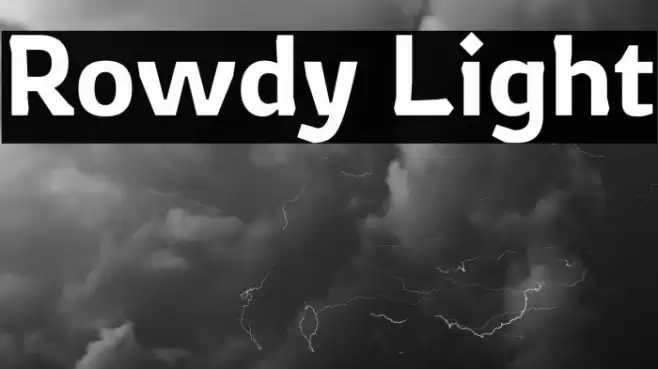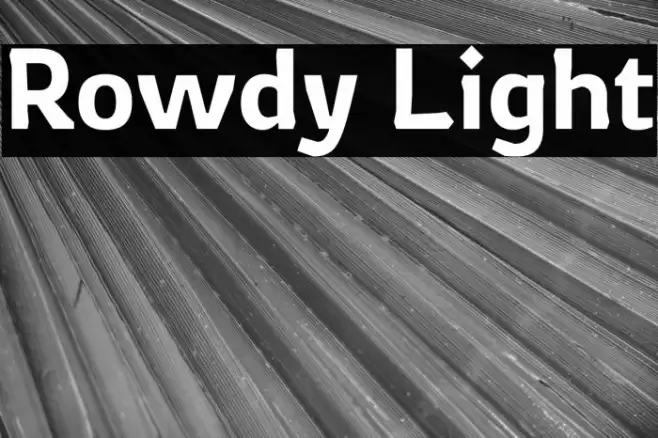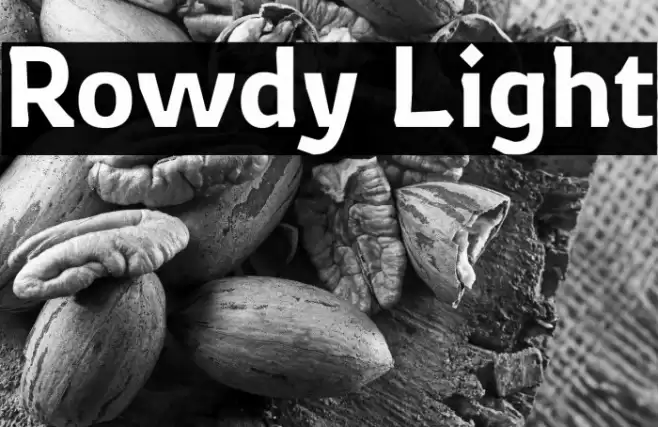
Rowdy Light Font
Rowdy Light Description
This font features a bold and robust design with clean, straight lines and a modern aesthetic. The uppercase letters are uniform in height, providing a strong and consistent appearance. The lowercase letters maintain a similar width, offering a balanced look. Numbers are clear and easily distinguishable, making them suitable for various applications. Special characters are well-defined, ensuring readability and versatility. The overall style is contemporary, making it ideal for projects that require a strong visual impact.
A bold, modern font with clean lines and strong visual impact from Regular fonts.
- Proposed Projects: Ideal for branding, advertising, headlines, and digital media where a bold statement is needed.
- Use Case: Headlines, Logos, Advertising